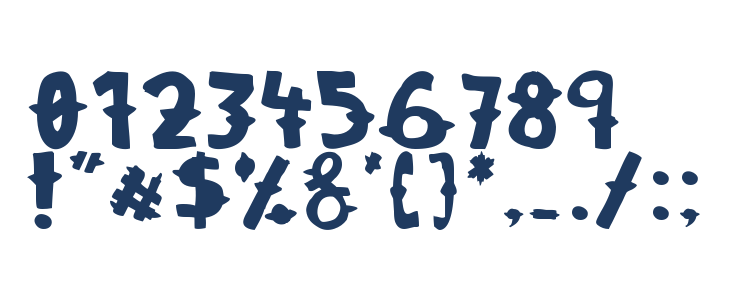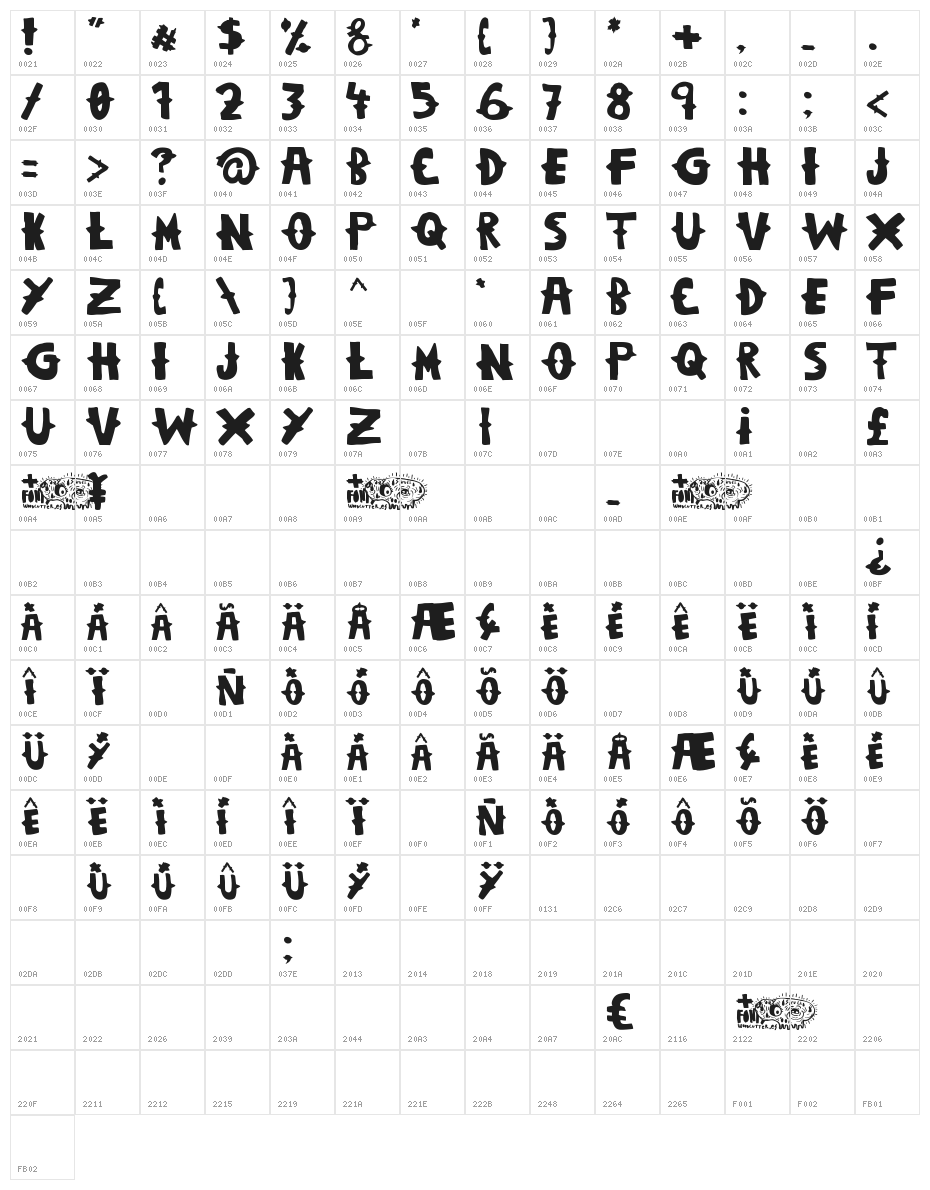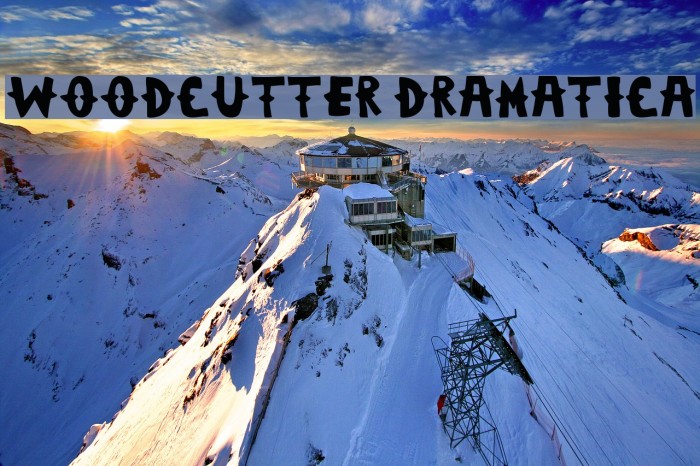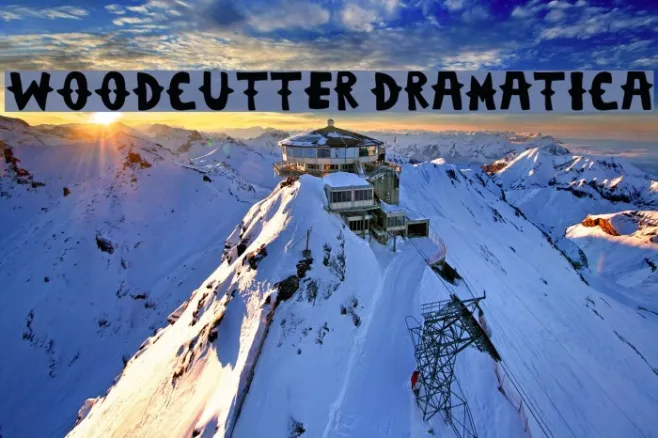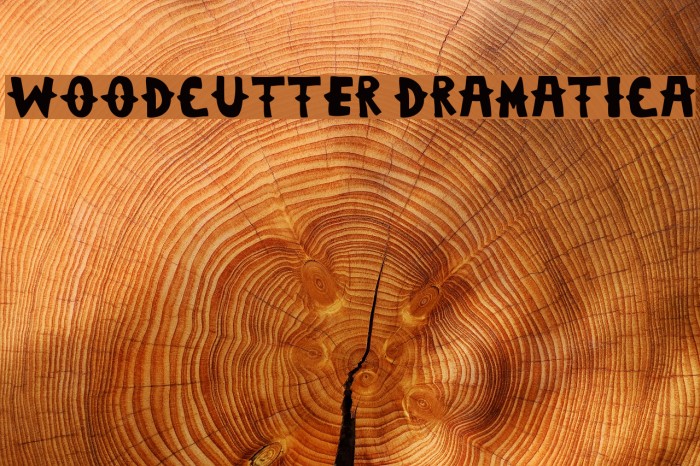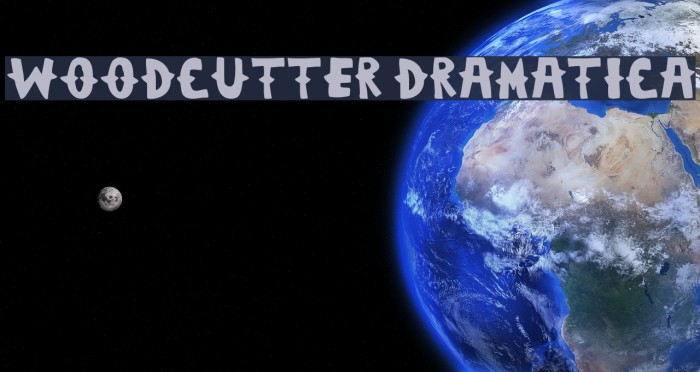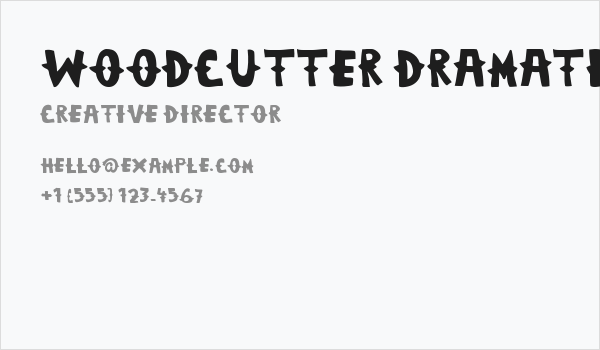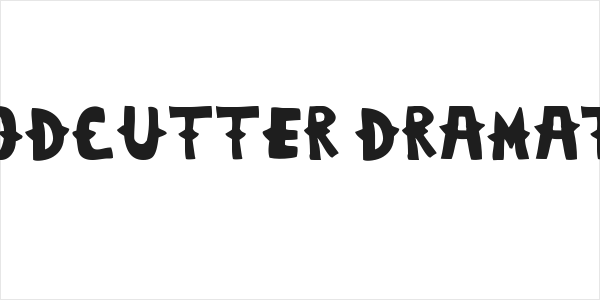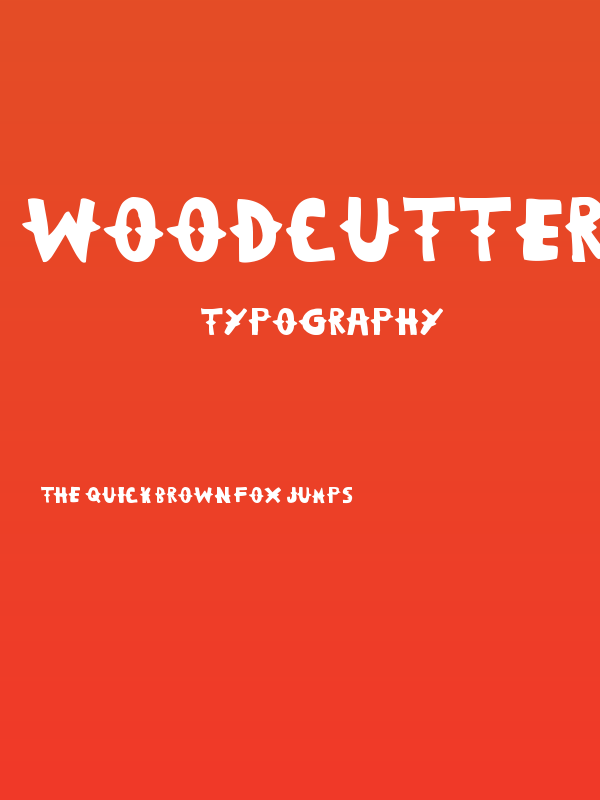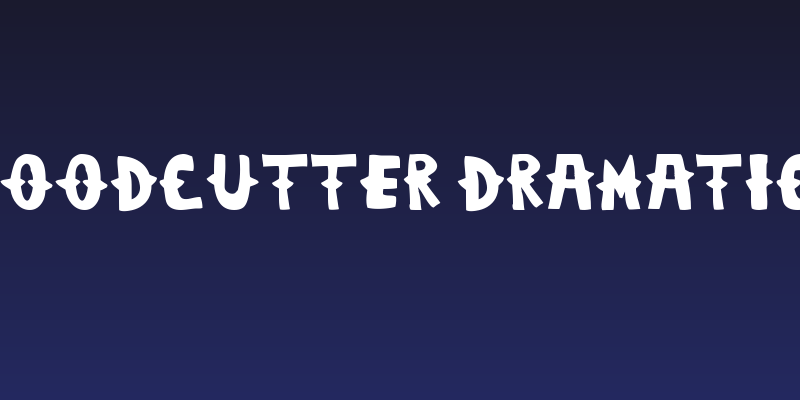
Woodcutter Dramatica Font
Woodcutter Dramatica Description
This font features a bold and playful design with a hand-drawn aesthetic. The characters are irregular and dynamic, giving a sense of movement and energy. The strokes are thick and uneven, contributing to a whimsical and informal appearance. The uppercase and lowercase letters maintain a consistent style, with exaggerated curves and angles that add to the font's unique charm. Numbers and special characters are equally bold and expressive, making them stand out. This font is ideal for projects that require a fun and eye-catching look.